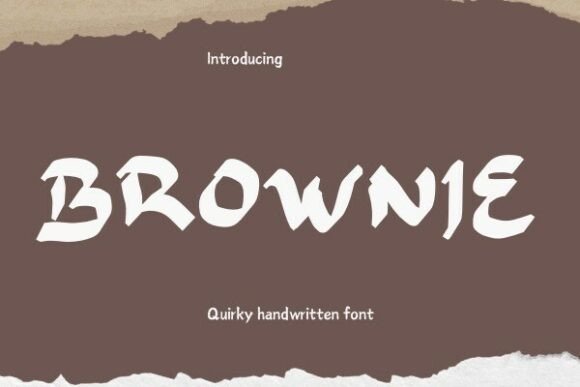
Unleashing the Charm of BROWNIE: A Unique Handwritten Font
I’ll never forget the moment I stumbled upon the BROWNIE font. I was working on a project for a client who wanted a custom design for their business cards, and I was struggling to find the perfect font. I had tried countless options, but nothing seemed quite right. That was until I discovered BROWNIE. Its distinctive, handwritten charm instantly caught my eye, and I knew I had found the one. In this article, we’ll dive into the captivating world of BROWNIE and explore its endless creative possibilities.
A Personal Review of BROWNIE
• ✨ Unique and eye-catching design that’s sure to turn heads
• ✅ Highly versatile and suitable for a wide range of creative projects
• 💫 Beautifully crafted with attention to detail and a personal touch
• 🎨 Perfect for adding a touch of personality to your designs
While BROWNIE is an amazing font, there are a few things to keep in mind:
• 🤔 Some users may find the font a bit too ornate or playful for certain projects
3. Experiment with OpenType features, such as glyphs and stylistic alternates, to add more personality to your text
The Story Behind BROWNIE
BROWNIE was designed with the intention of creating a unique, handwritten font that would add a touch of personality to any design. The designer wanted to craft a font that was both elegant and playful, making it perfect for a wide range of creative projects. With its distinctive charm and versatile design, BROWNIE has quickly become a favorite among designers and crafters alike.
Q: What type of projects is BROWNIE best suited for?
A: BROWNIE is an incredibly versatile font and can be used for a wide range of projects, from stylish T-shirts and personalized mugs to heartfelt greeting cards and elegant invitations.
Q: Can I combine BROWNIE with other fonts?
A: Absolutely! BROWNIE pairs well with many other fonts, but be sure to choose fonts that complement its unique style and personality.